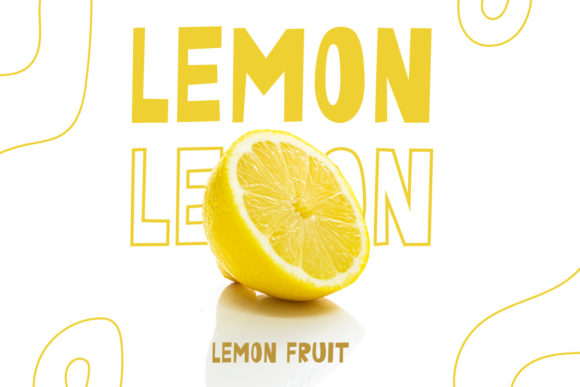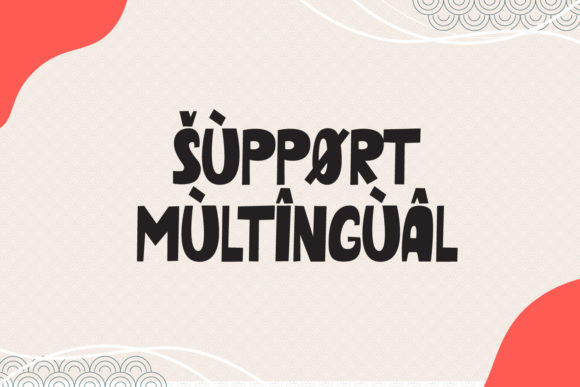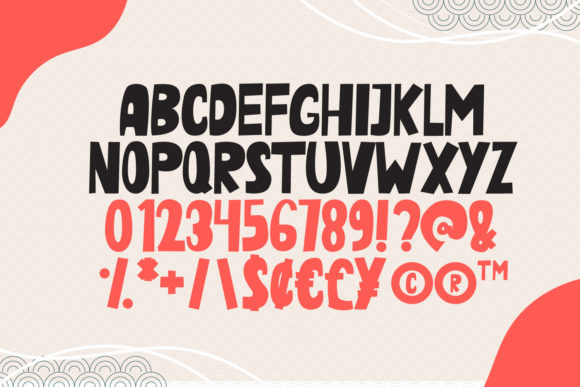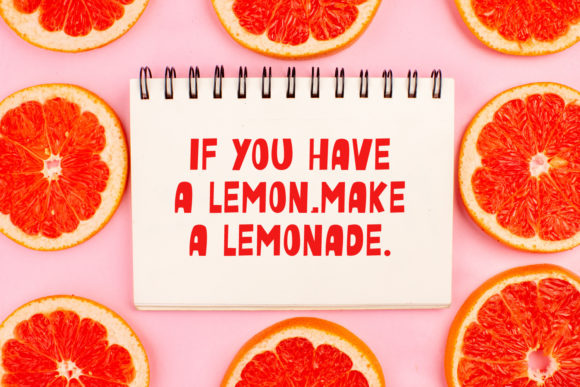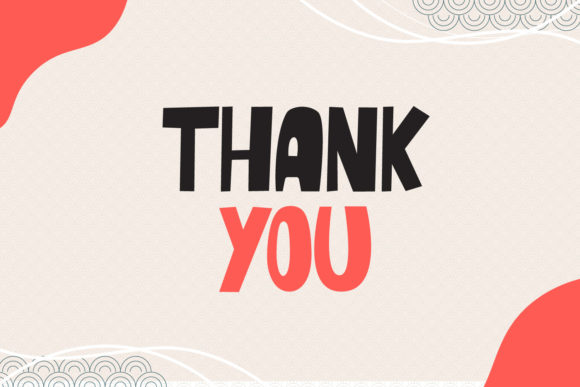
Fried Chicken Font: The Perfect Addition to Your Design Arsenal
Are you tired of using the same old fonts in your designs? Do you want to add a touch of whimsy and playfulness to your creations? Look no further than the Fried Chicken Font! This fun, simple, and cute display font is perfect for cartoon-related designs, children’s games, and any project that requires a lovely touch.
What is Fried Chicken Font?
Fried Chicken Font is a display font designed to bring a smile to your face. Its unique and quirky design makes it perfect for adding a personal touch to your designs. The font features rounded edges, soft curves, and a friendly feel that’s sure to capture the attention of your audience.
Key Features of Fried Chicken Font
- Fun and playful design: The Fried Chicken Font is designed to be fun and playful, making it perfect for designs that require a lighthearted touch.
- Simple and easy to read: Despite its playful design, the font is simple and easy to read, making it perfect for use in a variety of designs.
- Cute and charming: The font’s cute and charming design makes it perfect for use in children’s games, cartoon-related designs, and other projects that require a lovable touch.
- High-quality design: The Fried Chicken Font is designed with high-quality in mind, ensuring that it looks great in any design.
Use Cases for Fried Chicken Font
The Fried Chicken Font is versatile and can be used in a variety of designs, including:
- Cartoon-related designs: The font’s playful design makes it perfect for use in cartoon-related designs, such as animated movies, TV shows, and comics.
- Children’s games: The font’s cute and charming design makes it perfect for use in children’s games, such as educational games, puzzle games, and adventure games.
- Branding and advertising: The font’s unique design makes it perfect for use in branding and advertising, such as logos, slogans, and taglines.
- Digital and print media: The font can be used in a variety of digital and print media, such as posters, flyers, brochures, and social media graphics.
Tips for Using Fried Chicken Font
Here are some tips for using the Fried Chicken Font in your designs:
- Use it sparingly: The Fried Chicken Font is a display font, so it’s best to use it sparingly to add emphasis to your design.
- Pair it with other fonts: The font pairs well with other fonts, such as sans-serif fonts, to create a unique and interesting design.
- Experiment with colors: The font looks great in a variety of colors, so don’t be afraid to experiment and find the perfect color for your design.
The Fried Chicken Font is a fun, simple, and cute display font that’s perfect for adding a touch of whimsy and playfulness to your designs. Its unique design makes it perfect for use in cartoon-related designs, children’s games, and any project that requires a lovely touch. With its high-quality design and versatility, the Fried Chicken Font is sure to become a staple in your design arsenal.